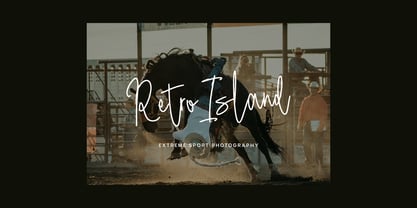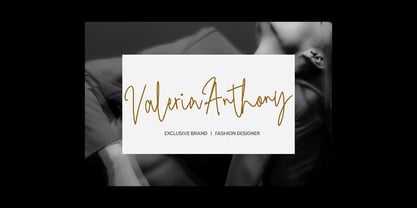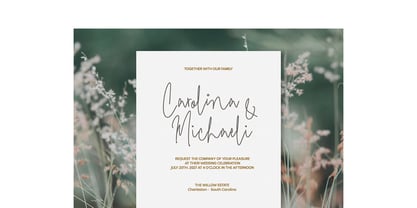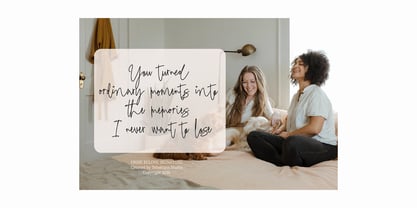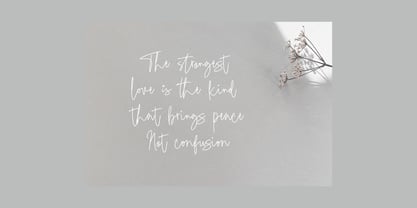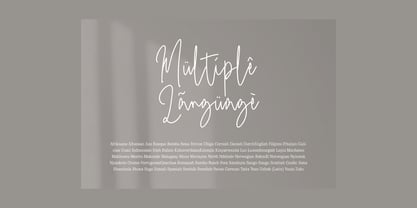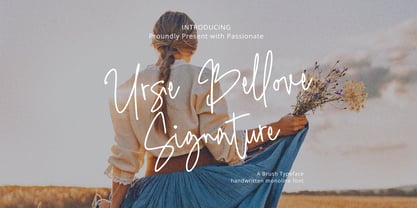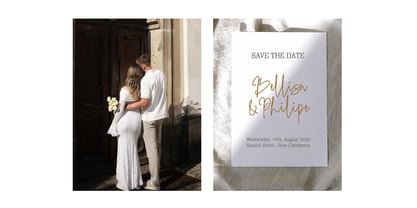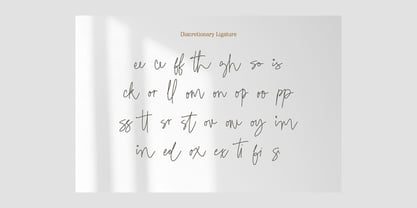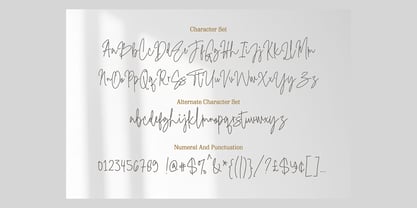
Ursie Bellove Signature
The Ursie Bellove Signature Font Family was designed by Dzulka Elfira and published by Tebaltipis Studio. Ursie Bellove Signature contains 1 styles. More about this family
Ursie Bellove Signature with a handmade Signature style, decorative characters and a dancing baseline! So beautiful on invitation like greeting cards, branding materials, business cards, quotes, posters, and more!!
Ursie Bellove Signature come with 170+ glyphs. The alternative characters were divided into several Open Type features such as Swash, Stylistic Sets, Stylistic Alternates, and Ligature. The Open Type features can be accessed by using Open Type savvy programs such as Adobe Illustrator, Adobe InDesign, Adobe Photoshop Corel Draw X version, And Microsoft Word. And this Font has given PUA unicode (specially coded fonts). so that all the alternate characters can easily be accessed in full by a craftsman or designer.
Ursie Bellove Signature Features :
Uppercase & Lowercase International Languange & Symbols Support Punctuation & Number PUA Unicode Range Standard Ligatures Discretionary Ligatures Stylistic Alternates Stylistic Set.